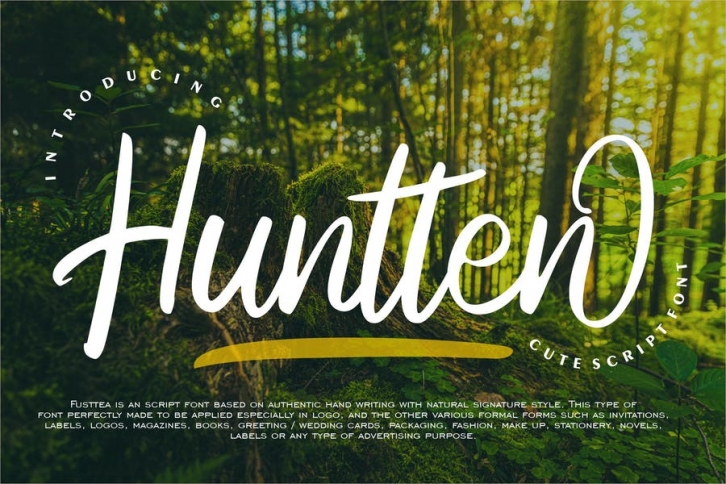
Huntten | Cute Script Font with a calligraphy style, So beautiful on invitation like greeting cards, branding materials, business cards, quotes, posters, and more!